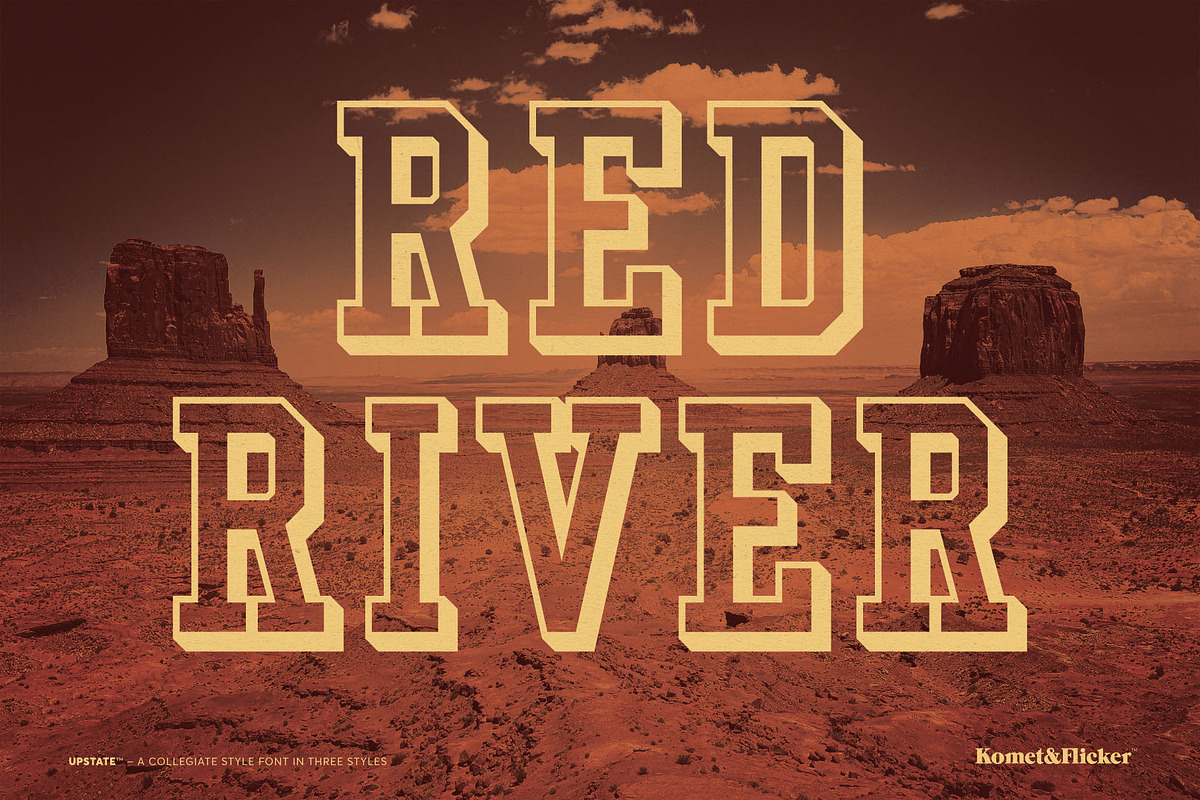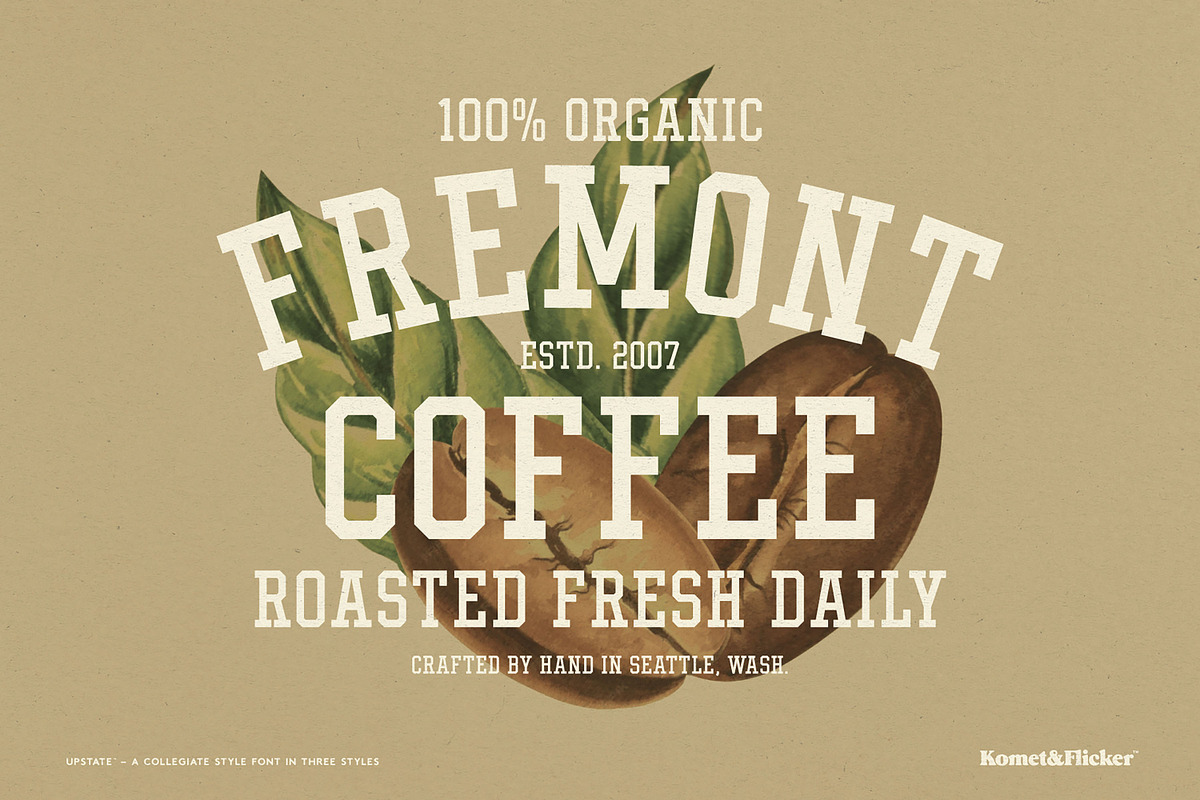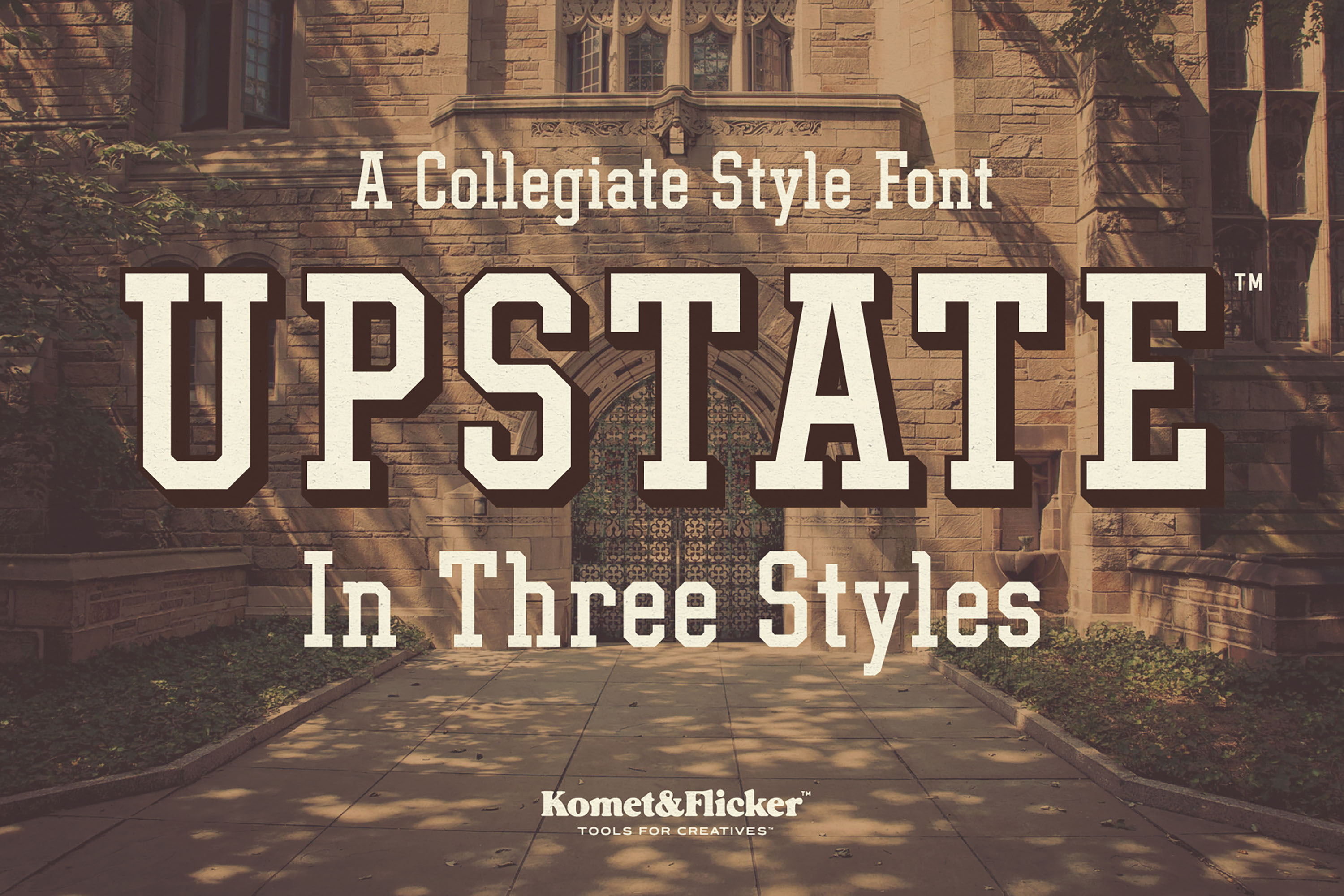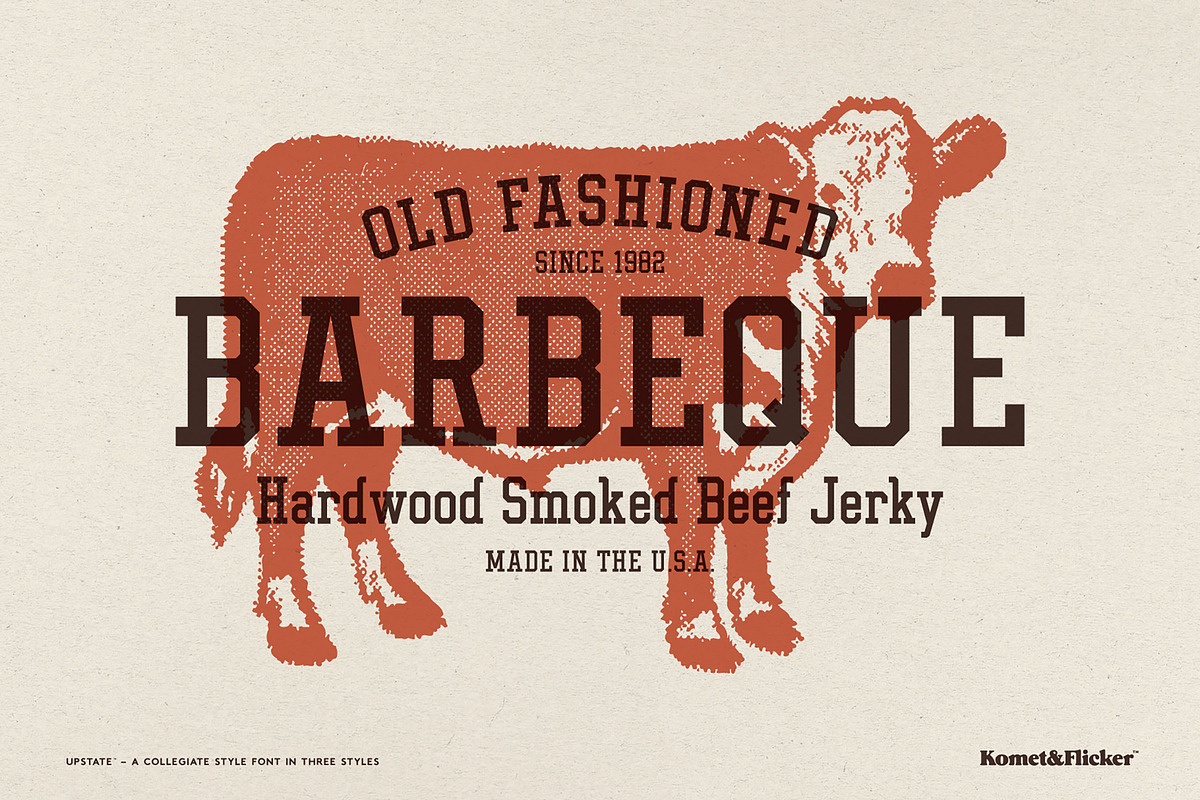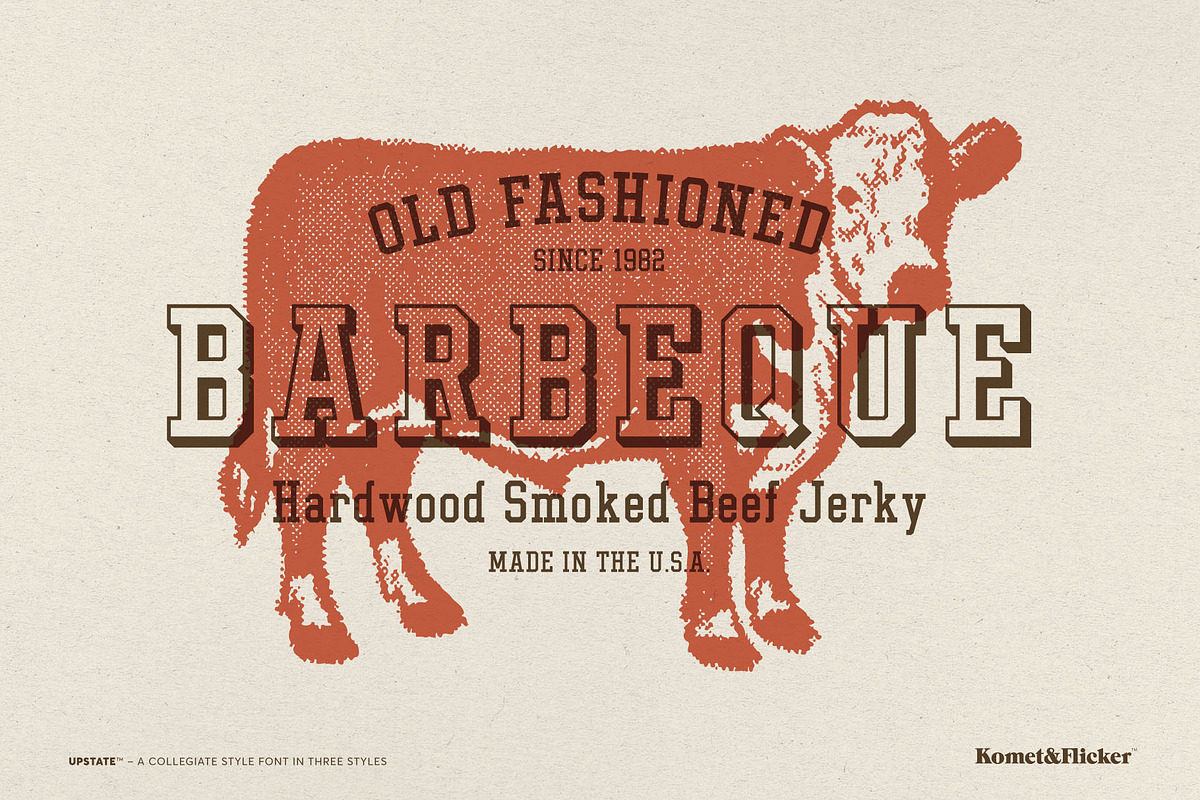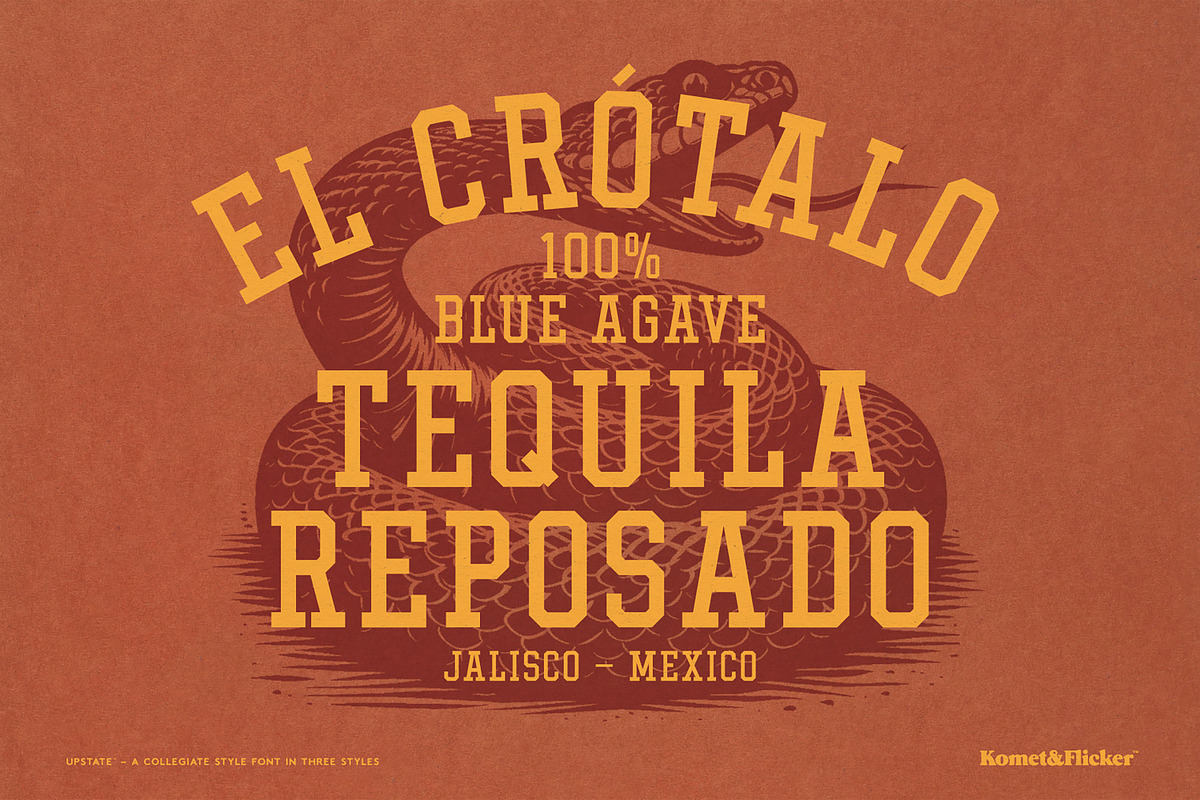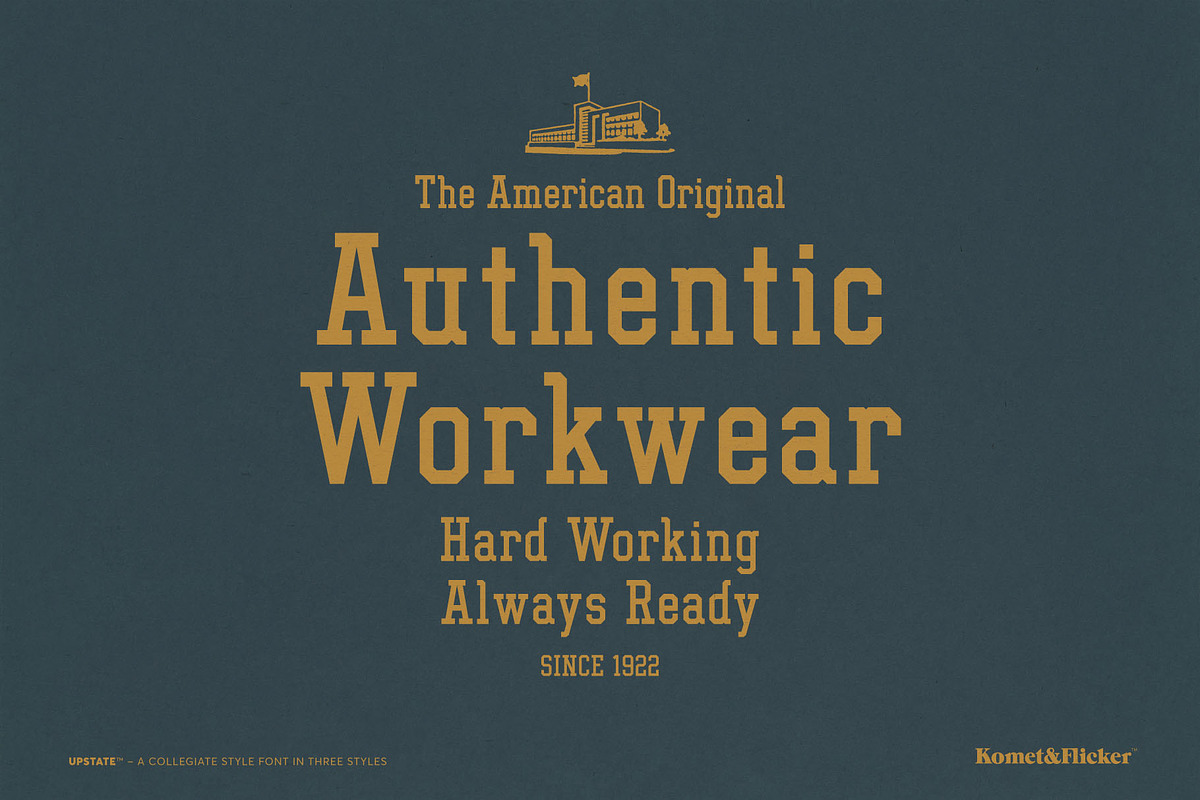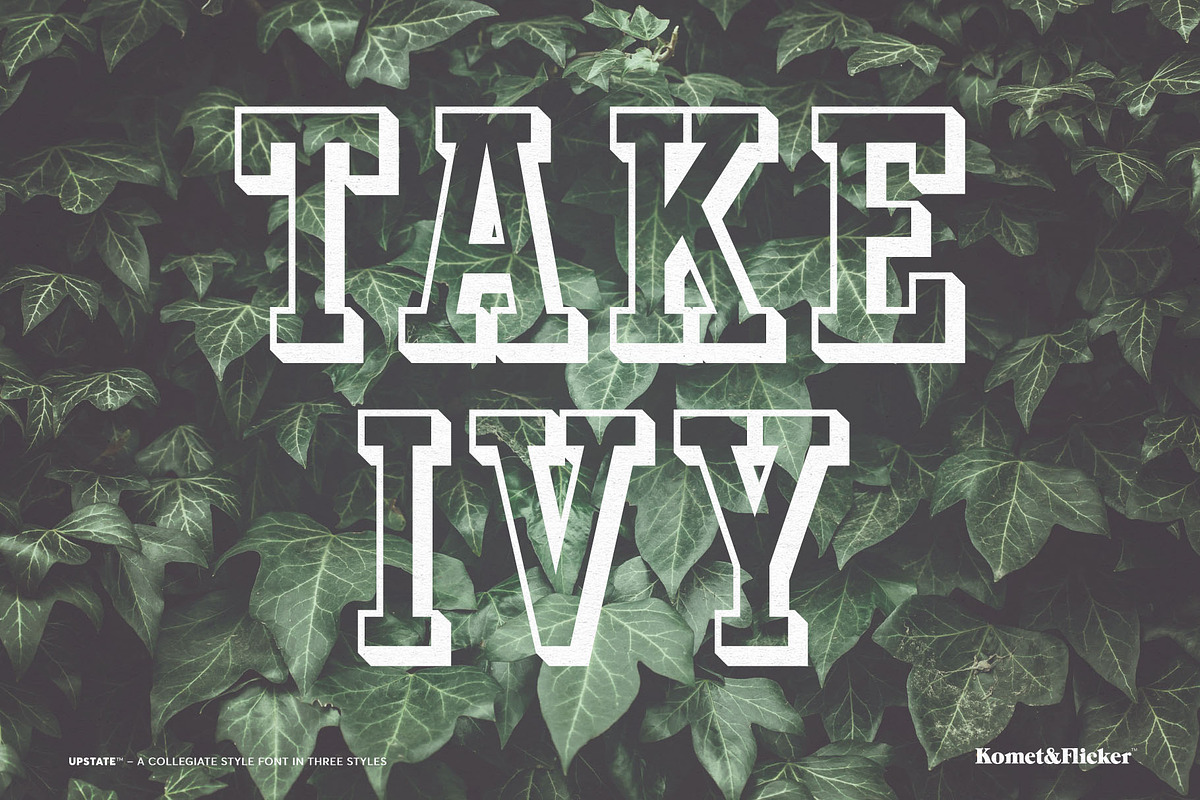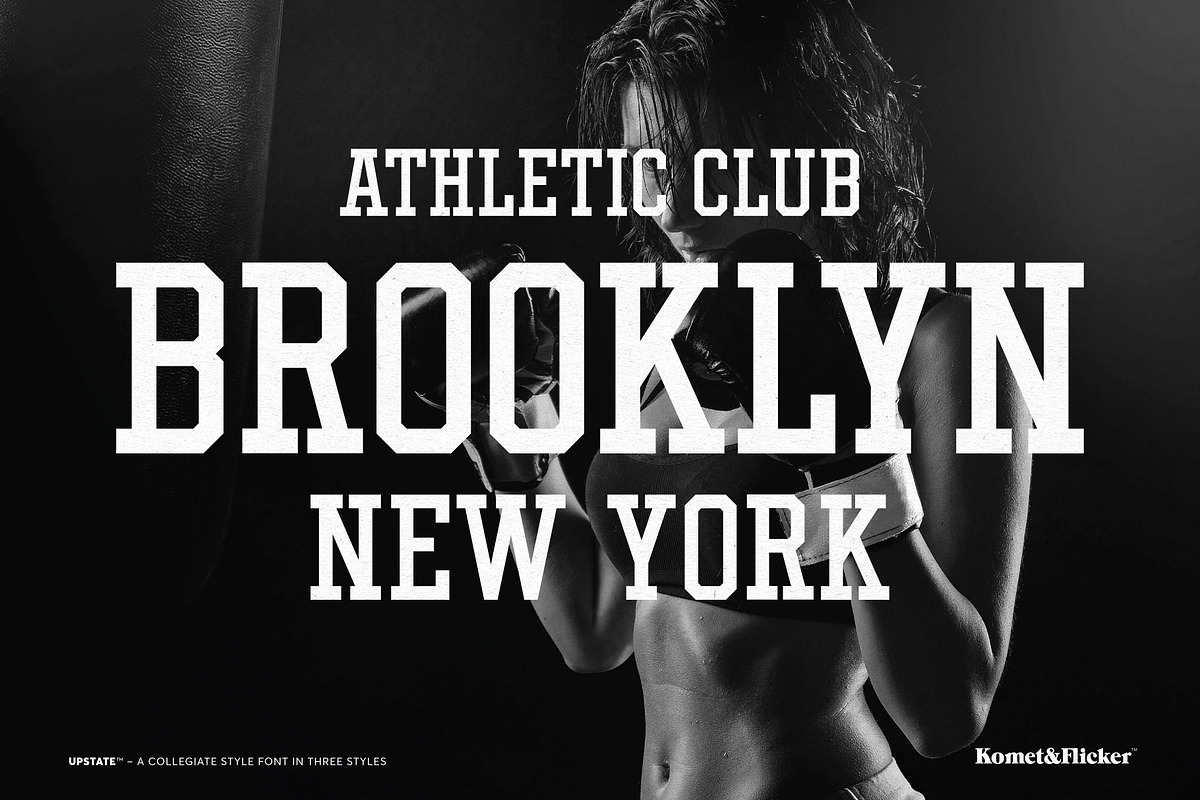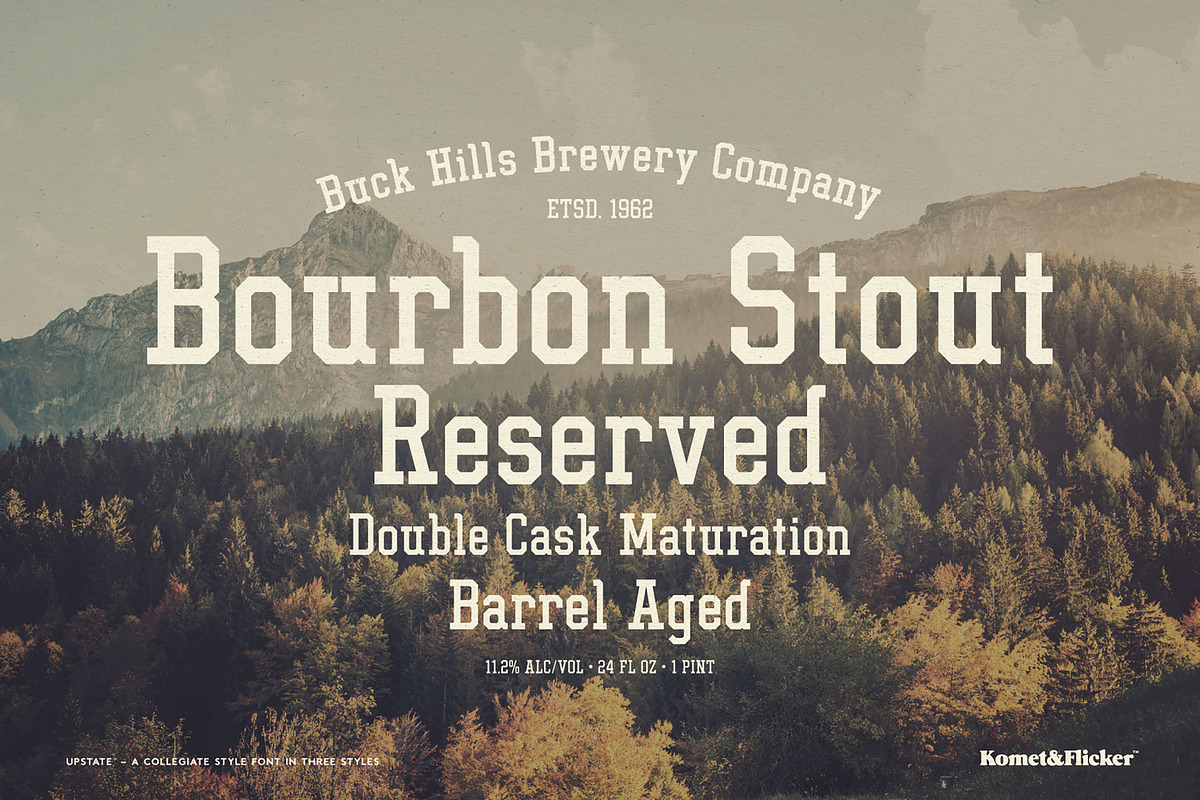
UPSTATE - A Collegiate Style Font
Introducing UPSTATE, a vintage style slab serif font that embodies the timeless elegance and spirited energy of collegiate style. Inspired by prestigious ivy league prep schools and classic athletic lettering, UPSTATE brings a touch of tradition and vigor to your designs. Its robust, angular lines and bold, confident strokes make it perfect for headlines, logos, posters, and apparel.
THIS FONT COMES IN THREE STYLES
UPSTATE Regular
UPSTATE Shadow Outline
UPSTATE Shadow Base + UPSTATE Shadow Fill (together they create a single style)
THIS FONT INCLUDES
Full A-Z upper and lowercase basic latin characters
Select European specific characters
Numbers, punctuation, and select symbols